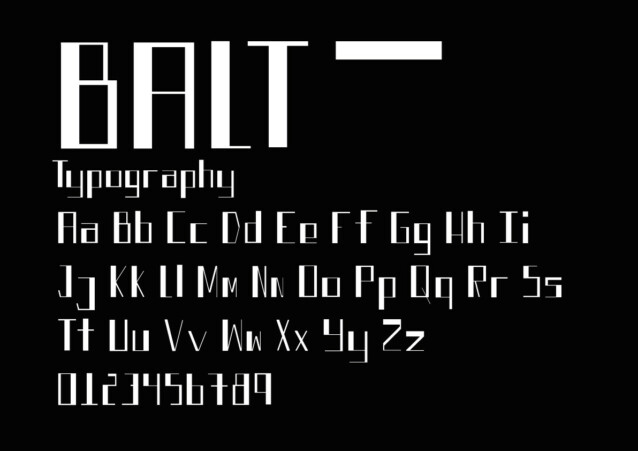
The Balt Font
The Balt Font is a elegant and simple font, ideal to use in modern and futuristic designs. Ideal for logos, product packaging, header, poster, merchandise, social media and can adapt well to diferents cenarios.